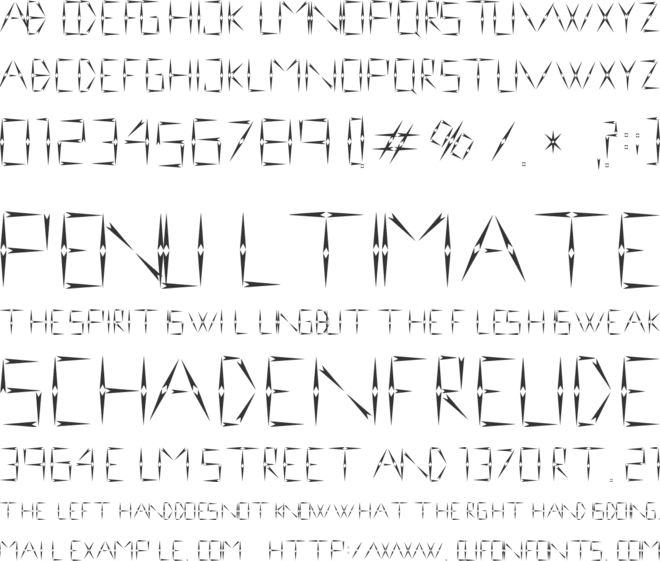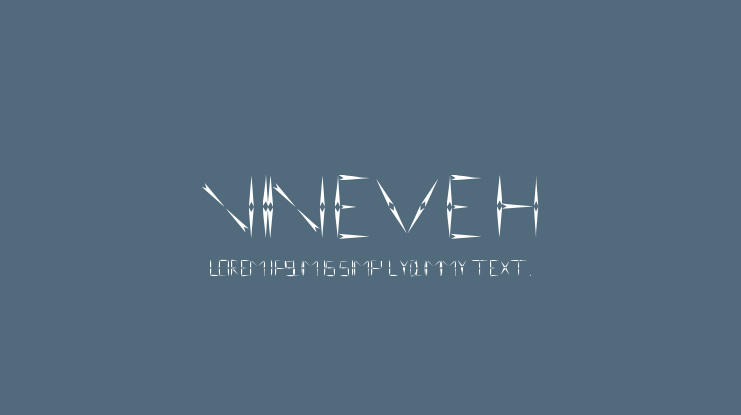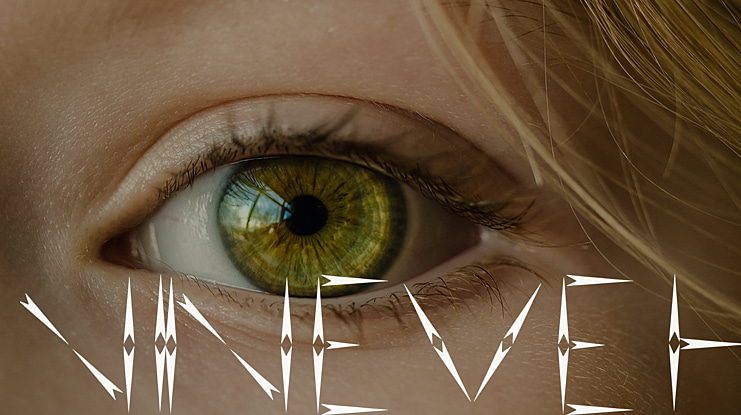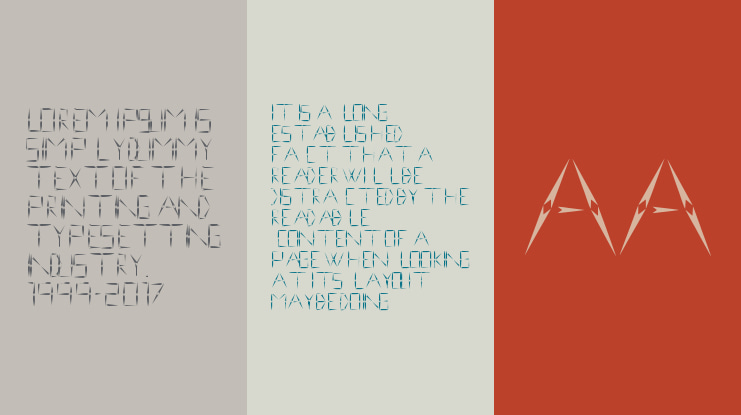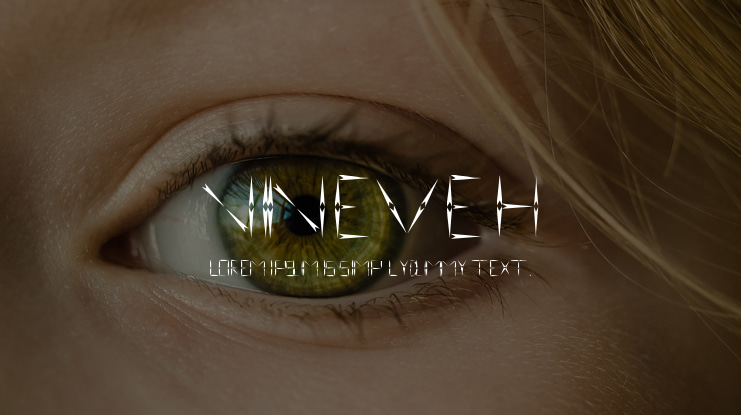
My intention was to create a kind of cuniform. Therefore, sizes of small and capital font series are the same, but the distance between the each fonts in the two series are different. Small-font serie have the fonts no same distance between them, a little bit more "hand-cuniform writing" like. Capital font serie have between the fonts more or less the same distance between each font, the image of the writing is more ordered.
You can find basic punctuation marks, except multiplication sign, (use X instead), @ and &, which I mean, misbecome the cuniform.